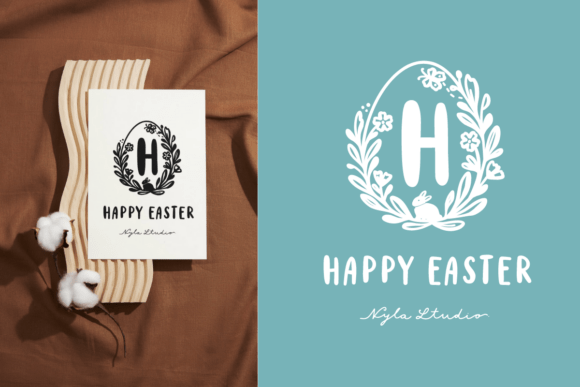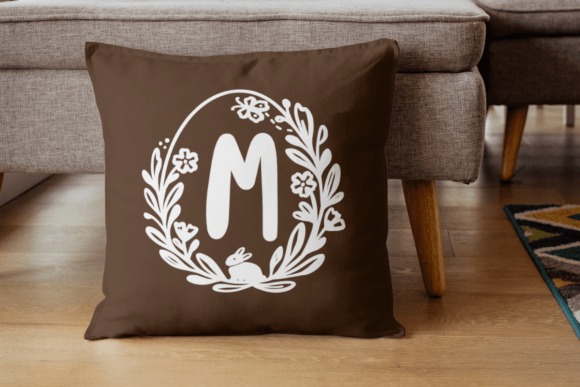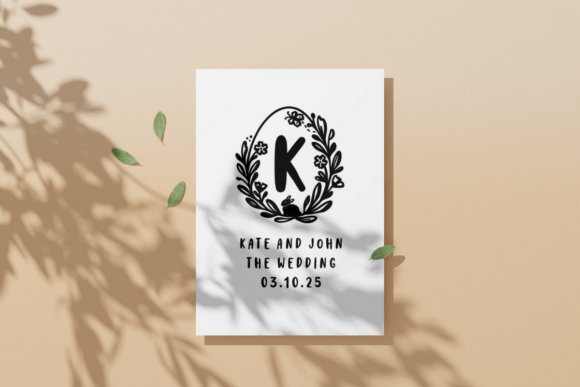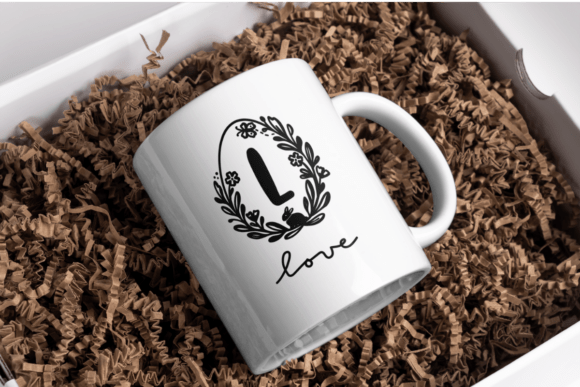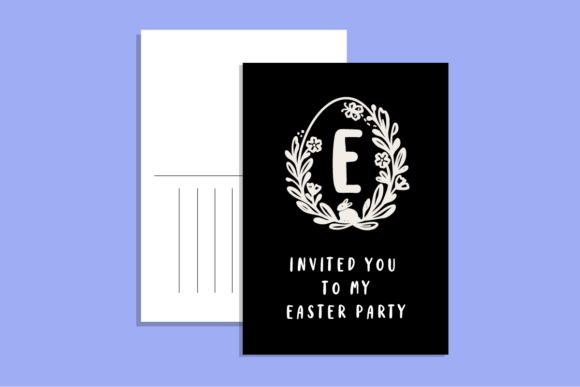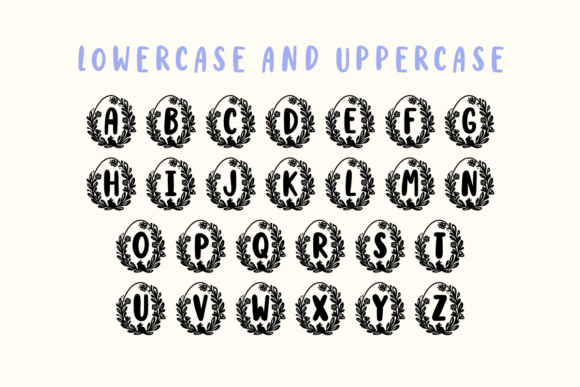
Easter Monogram Font: The Perfect Addition to Your Spring Projects
Are you looking for a unique and playful font to add a touch of Easter and Spring to your designs? Look no further than the Easter Monogram Font! This hand-drawn easter egg monogram font is perfect for a variety of projects, from logo design and shirts to wedding designs, invitation cards, and more.
What is Easter Monogram Font?
Easter Monogram Font is a carefully crafted, hand-drawn font that features beautiful Easter egg monograms. Each letter is designed to resemble an Easter egg, complete with intricate details and a playful touch. The font is highly versatile and can be used for a wide range of projects, making it a great addition to any designer’s toolkit.
Perfect for Easter and Spring Projects
Easter Monogram Font is specifically designed for Easter and Spring projects, but its uses don’t stop there. The font’s playful and festive design makes it perfect for:
- Easter and Spring-themed logo design
- T-shirts and other apparel
- Wedding designs and invitations
- Greeting cards and posters
- Packaging and decorating illustrations
- Mugs, stickers, and other promotional products
- Playful quotes and social media graphics
Why Choose Easter Monogram Font?
There are many reasons why Easter Monogram Font stands out from the crowd. Here are just a few:
- Unique and playful design: The Easter Monogram Font features a one-of-a-kind design that’s sure to grab attention.
- Highly versatile: The font can be used for a wide range of projects, from logos and branding to greeting cards and packaging.
- Hand-drawn with love: Each letter is carefully hand-drawn with attention to detail, ensuring a unique and personal touch.
Tips for Using Easter Monogram Font
Here are a few tips for getting the most out of Easter Monogram Font:
- Experiment with colors: The font looks great in a variety of colors, so don’t be afraid to get creative!
- Mix and match letters: Combine different letters to create unique monograms and designs.
- Use it with other fonts: Pair Easter Monogram Font with other fonts to create interesting and dynamic designs.
- Don’t be limited to Easter: While the font is perfect for Easter and Spring projects, it can also be used for other festive and playful designs.
| Font Name | Easter Monogram Font |
| Author | Nyla.studio |
Easter Monogram Font is a unique and versatile font that’s perfect for designers and crafters looking to add a touch of Easter and Spring to their projects. With its playful design, ease of use, and high versatility, it’s a great addition to any designer’s toolkit. Whether you’re creating logos, greeting cards, or promotional products, Easter Monogram Font is sure to make your designs stand out.